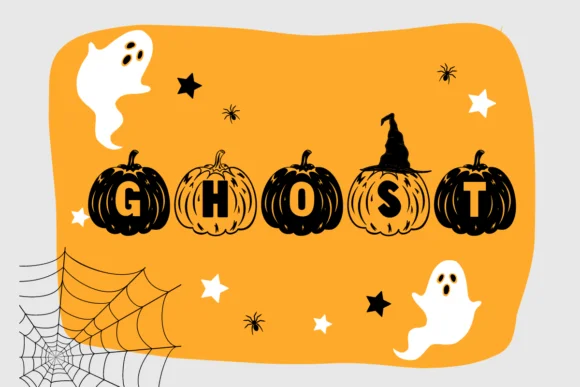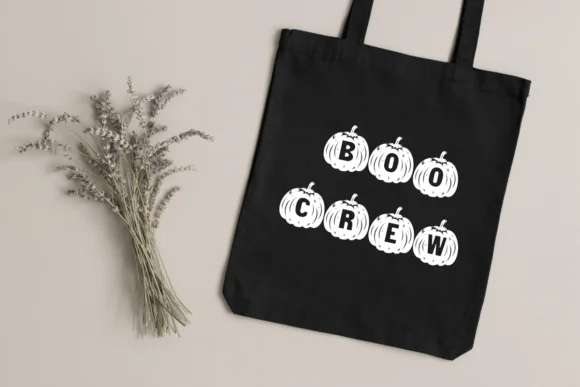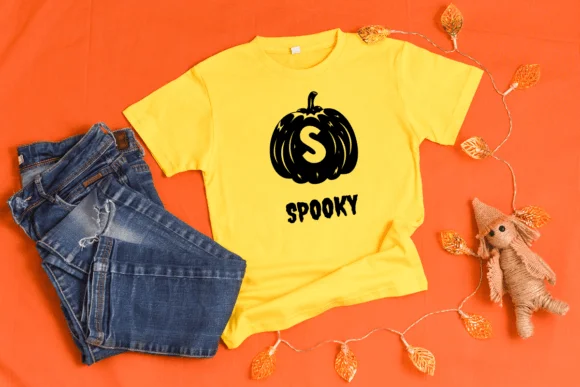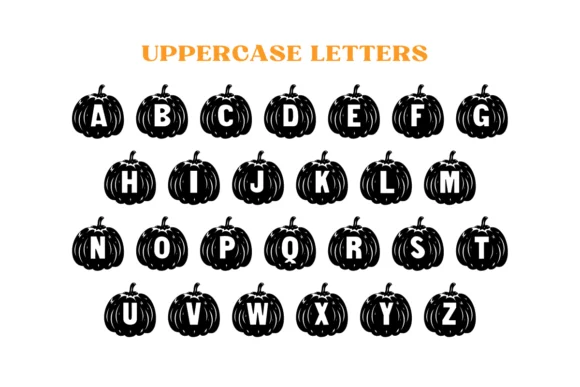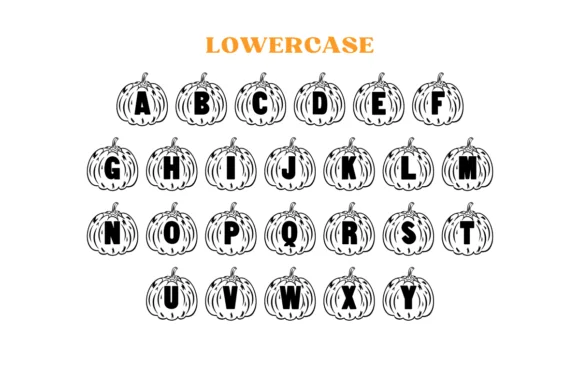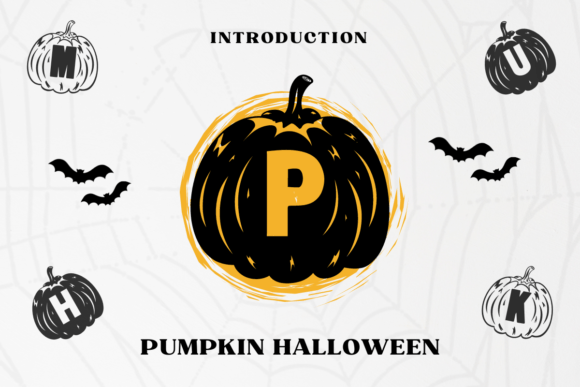
Pumpkin Halloween Font
This harvest font is perfect for pumpkin patch decorations, jack-o'-lantern displays, autumn harvest festivals, pumpkin carving contests, fall seasonal marketing, pumpkin spice celebrations, harvest Halloween parties, agricultural Halloween events, pumpkin farm signage, and delightfully orange Halloween messaging materials.
Pumpkin Halloween Font is exciting because it captures the iconic essence and harvest magic of pumpkins through its organically crafted letterforms that embody the round, welcoming charm of the most beloved symbol of Halloween and autumn celebration. The font features curvaceous, bulbous characters with pumpkin-inspired proportions and harvest details that evoke the satisfying weight and natural beauty of fresh pumpkins growing in moonlit patches, incorporating vine-like flourishes and gourd elements that create typography as warm and inviting as a perfectly carved jack-o'-lantern glowing with candlelight on a crisp October evening. Each letter showcases the natural appeal and agricultural heritage that makes pumpkins such enduring symbols of autumn abundance, with rounded curves and harvest accents that transform ordinary text into expressions of seasonal celebration that capture the way pumpkins connect Halloween to the ancient traditions of harvest festivals and the eternal cycle of growth, abundance, and community gathering that defines the most meaningful autumn celebrations.
The Pumpkin Halloween Font family includes harvest-inspired variations: Regular, Bold, Light, Carved, and Vine versions. The collection features special pumpkin elements including gourd accents, vine flourishes, harvest details, and agricultural ornaments. Additional components include pumpkin borders, harvest frames, agricultural decorations, and naturally abundant ornamental designs that enhance the font's pumpkin Halloween appeal and create cohesive harvest Halloween themes.
Pumpkin growers and harvest celebration enthusiasts will find Pumpkin Halloween Font to be an invaluable resource for creating authentically agricultural Halloween communications that celebrate the natural beauty and harvest heritage that make pumpkins such beloved symbols of autumn abundance and Halloween tradition. This organically crafted font transforms ordinary Halloween messaging into harvest expressions that resonate with audiences who appreciate the agricultural roots and natural beauty that connect Halloween to the earth's seasonal cycles and the timeless human celebration of abundance and harvest community.
The typeface includes comprehensive character support with harvest styling that maintains excellent readability while conveying the natural appeal and agricultural atmosphere of pumpkin-centered Halloween celebrations. The font's organically rounded design ensures naturally appealing results across both agricultural applications and harvest Halloween productions.
Perfect for pumpkin patches, harvest festivals, agricultural Halloween events, and naturally abundant seasonal marketing, this font delivers organically appealing visual impact that communicates harvest abundance, natural beauty, and the agricultural heritage that makes pumpkins such perfectly symbolic and enduringly beloved icons of Halloween and autumn celebration.